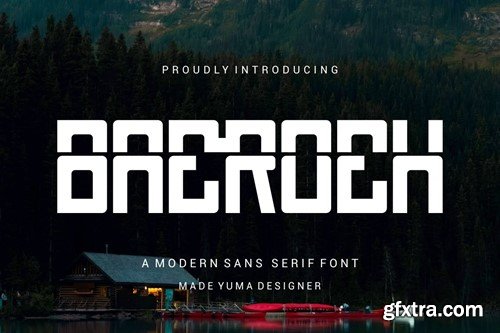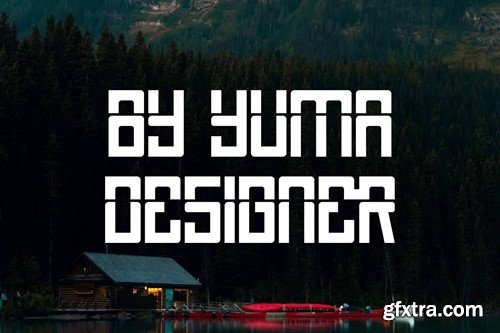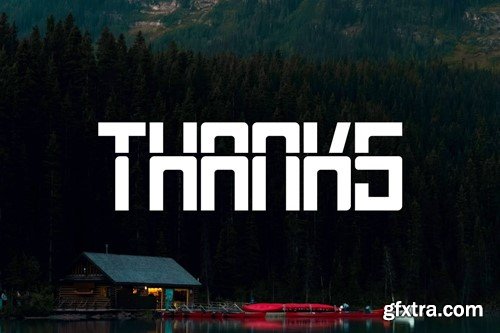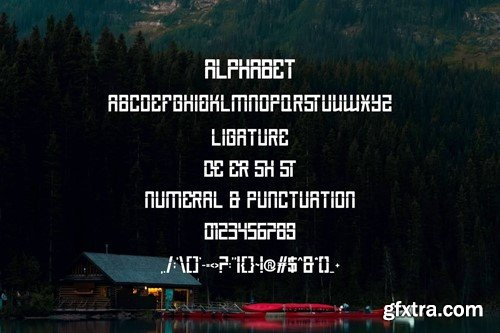
Baeroeh Font
Introducing Baeroeh Modern Sans Serif. Baeroeh is a modern and simple font, best used as a display for headings, logos, branding, magazines, product packaging and invitations. Baeroeh come with clean lines and smooth curves give any project an extra touch of class. What you get: Thank you.